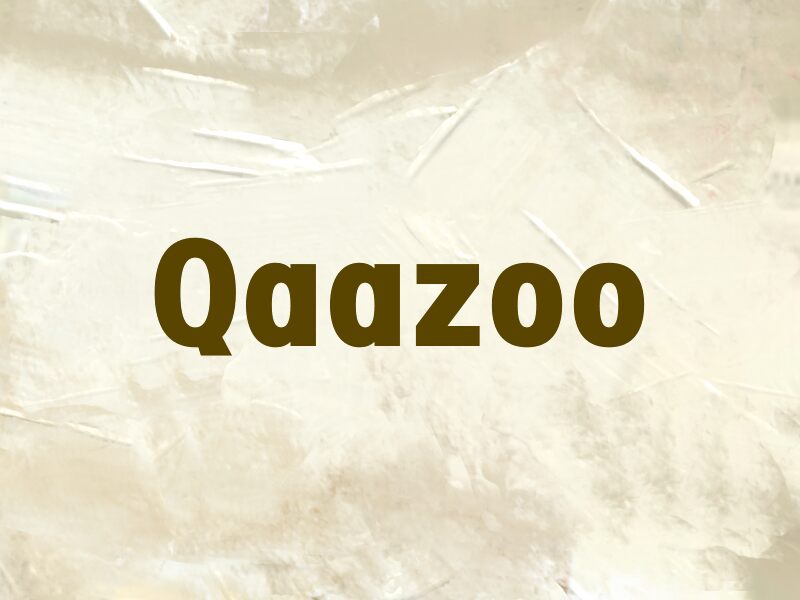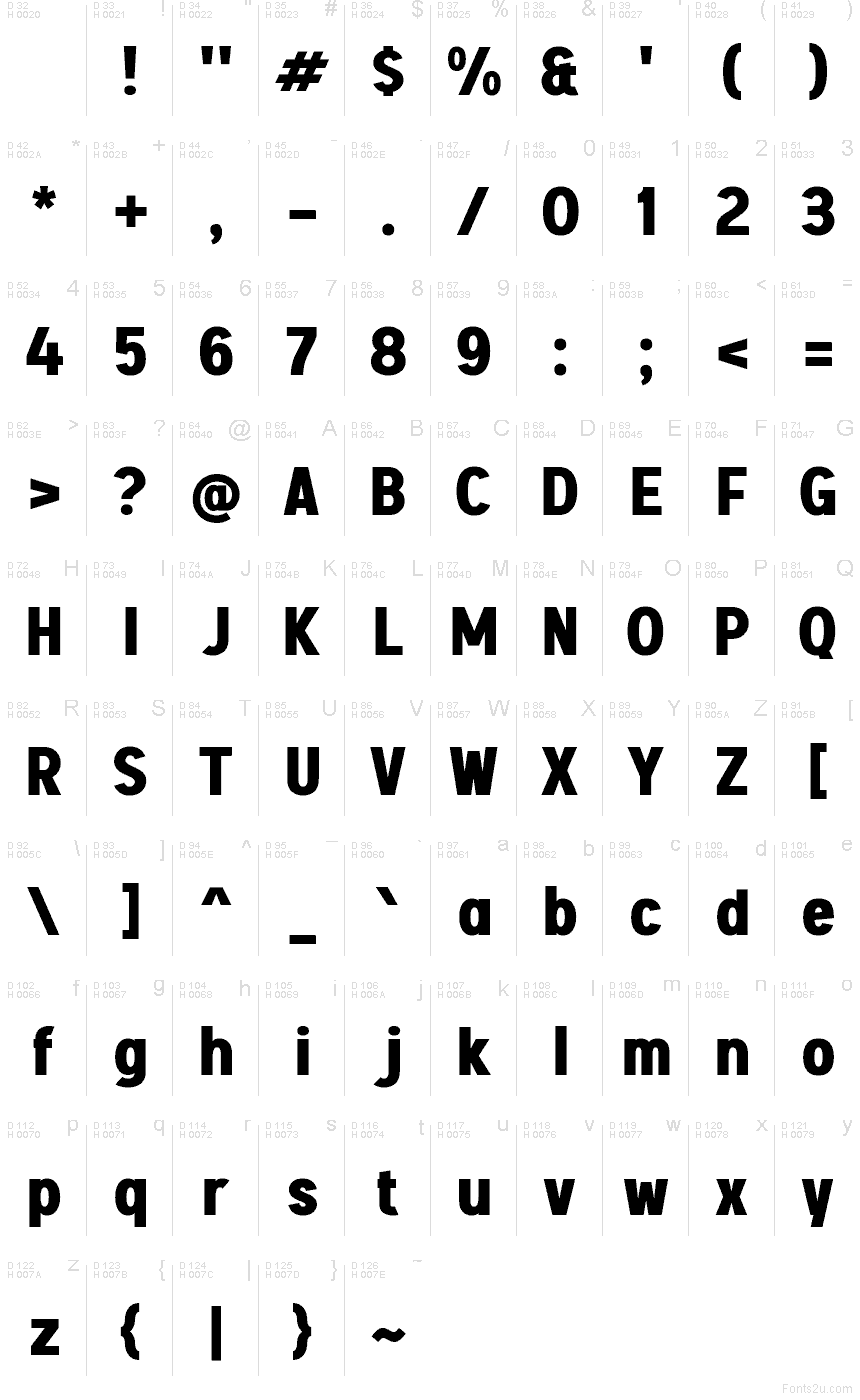
Qaazoo
Qaazoo font by wepfont.com is a free bold sans serif typeface with a thick, inky presence and soft, almost pillowy curves. Its letters feel tightly packed and confident, creating a solid block of color that grabs attention without looking harsh. The rounded shapes and sturdy strokes give Qaazoo a friendly weight—like a marker-drawn headline cleaned up for digital use.
Using Qaazoo, you can punch up logos, banners, thumbnails, product packaging, kids’ branding, and bold social graphics with a single, unmistakable voice. This free font thrives at larger sizes where its chunky proportions and smooth edges can really shine. Pair it with a light, neutral sans for body copy and you’ll get a clear, modern hierarchy that’s easy to scan on screens.